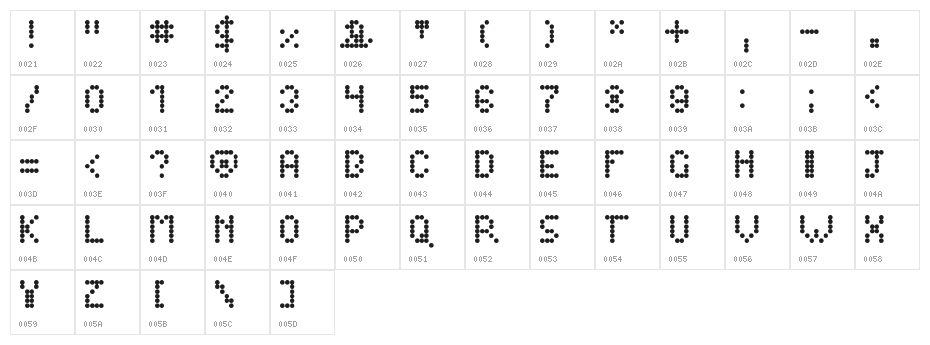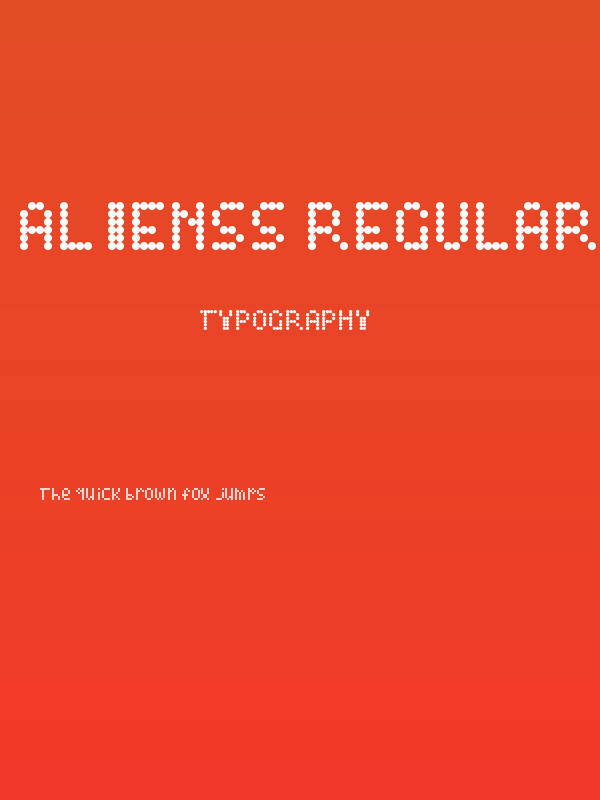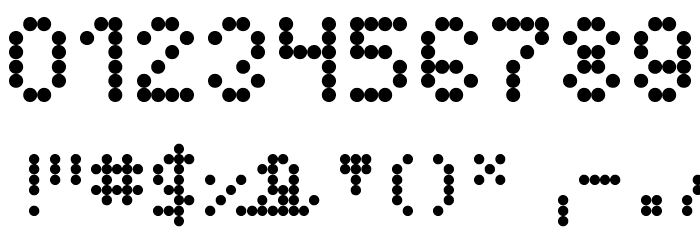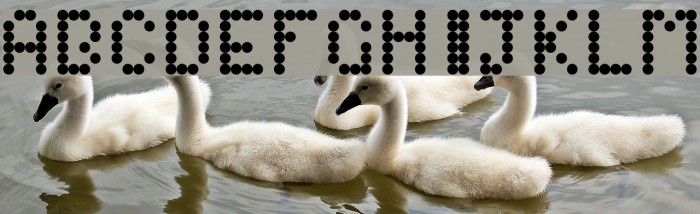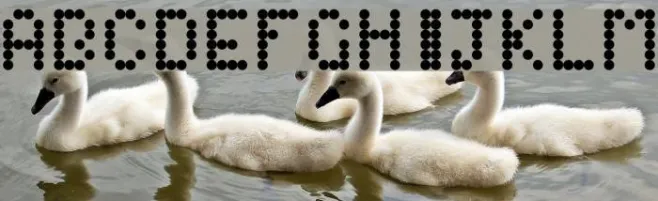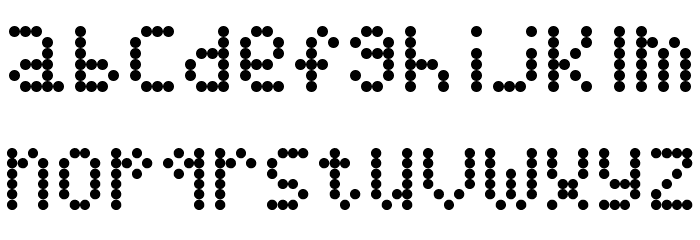
Alienss Regular Font
Alienss Regular Description
This font features a unique design where each character is composed of small, evenly spaced dots, creating a futuristic and digital appearance. The characters are clearly defined, with each letter and number maintaining a consistent size and shape. The use of dots gives it a playful yet modern look, making it stand out from traditional fonts. The spacing between the dots is uniform, contributing to a cohesive and structured aesthetic. This font is ideal for projects that require a distinctive and eye-catching style, such as digital art, tech-related designs, or creative branding.
| Use Case | Logos, Headlines, Digital Art |
| Proposed Projects | Ideal for digital art, tech-related designs, creative branding, and futuristic themes. |